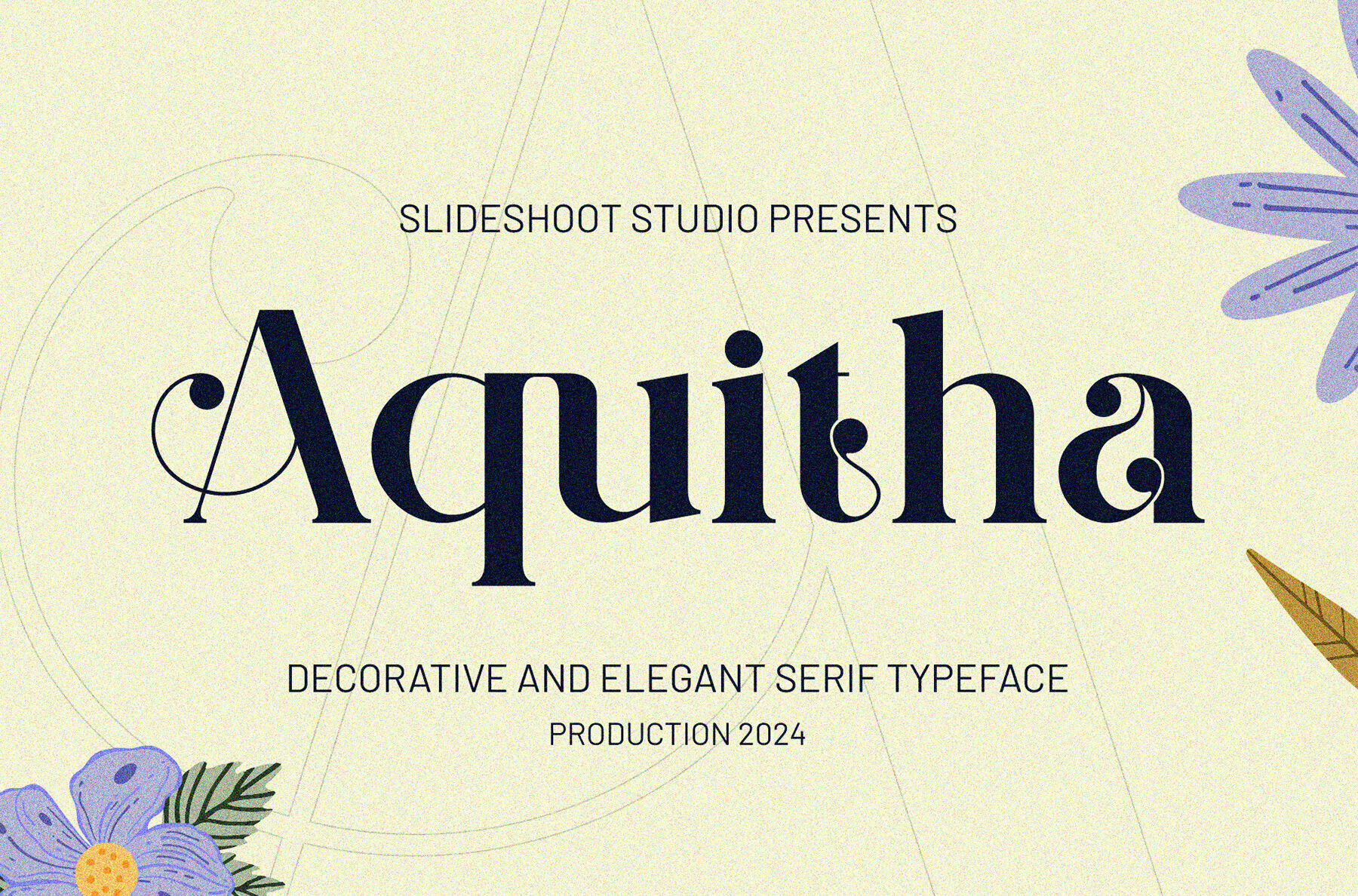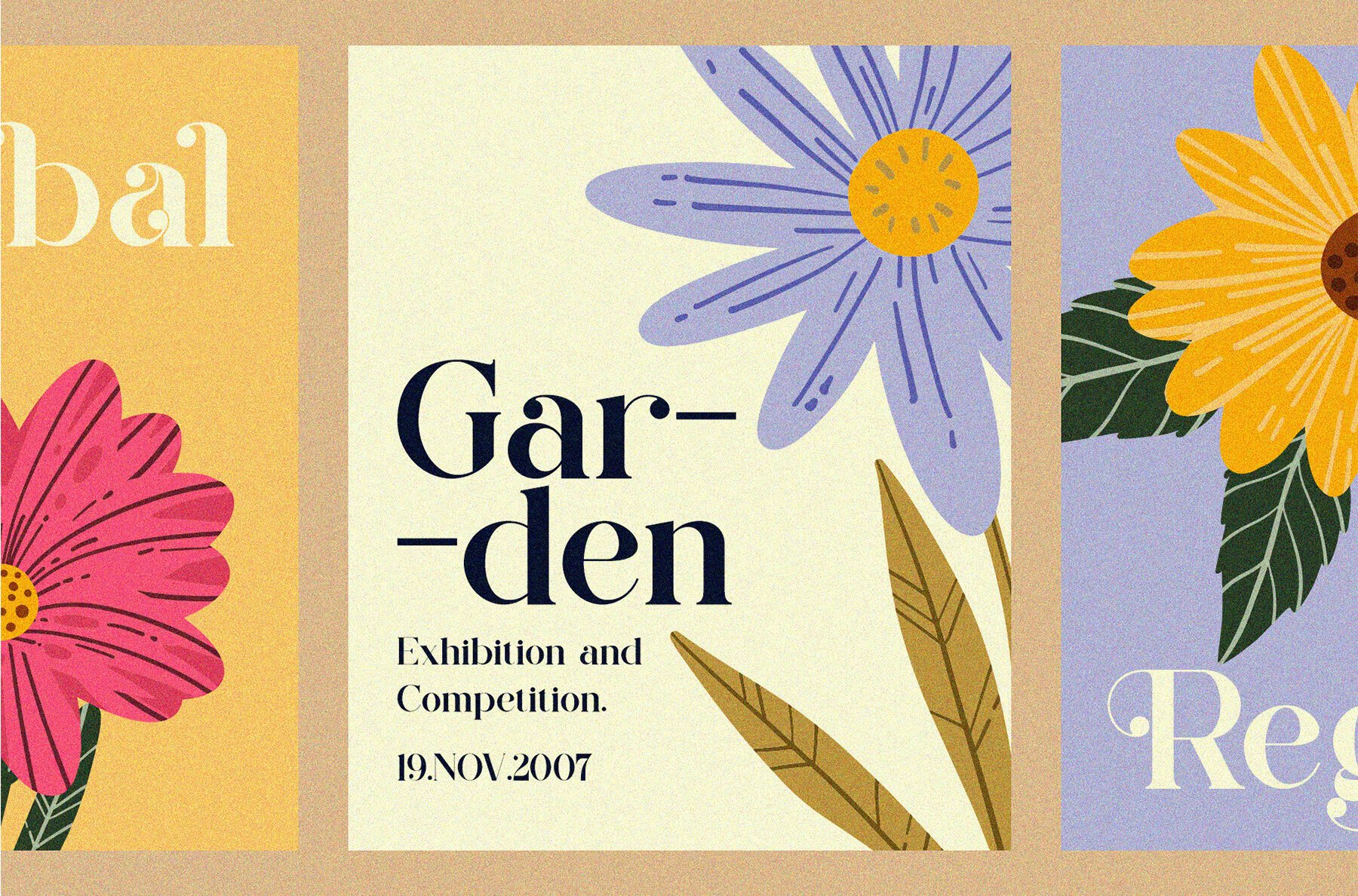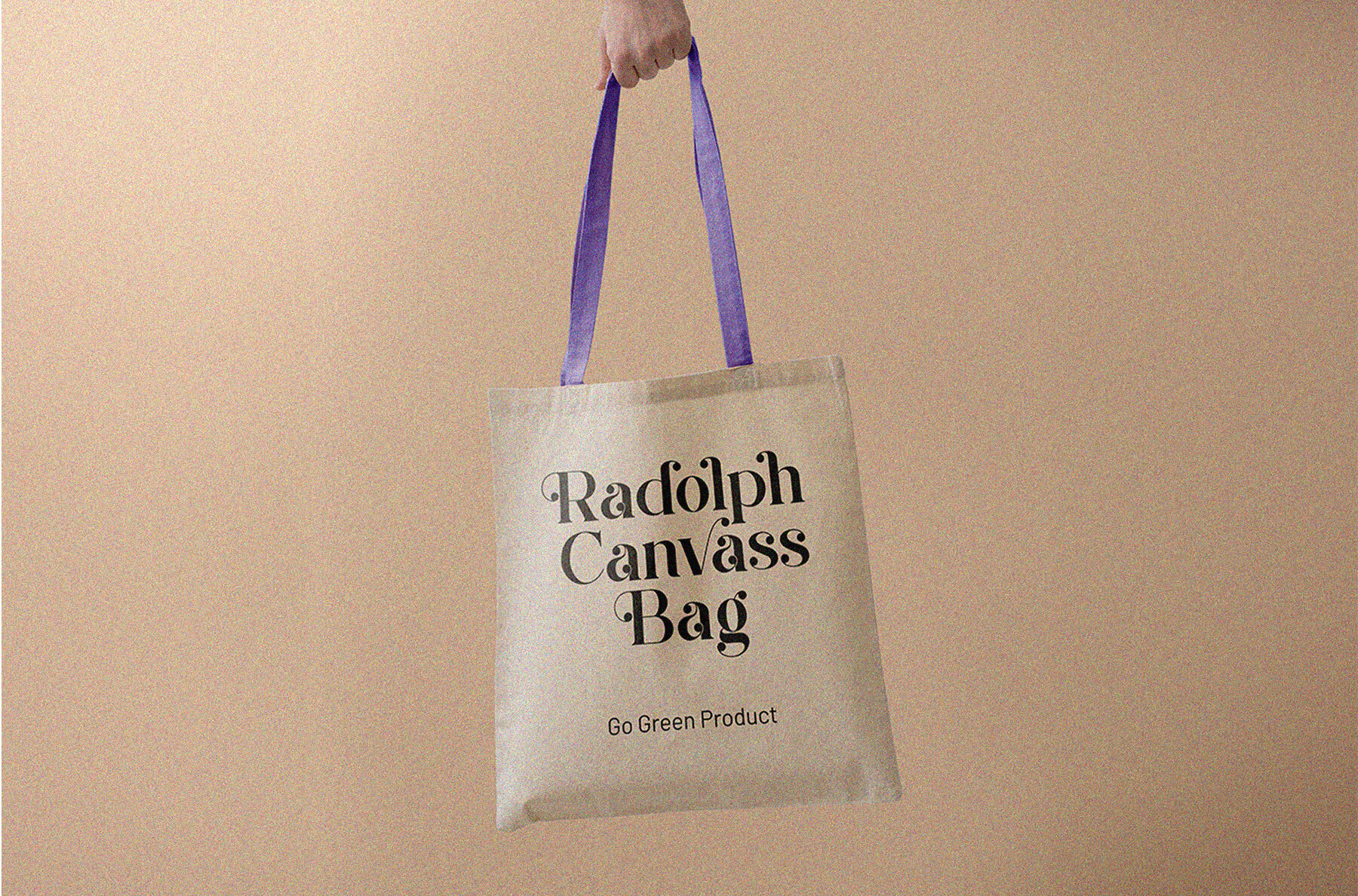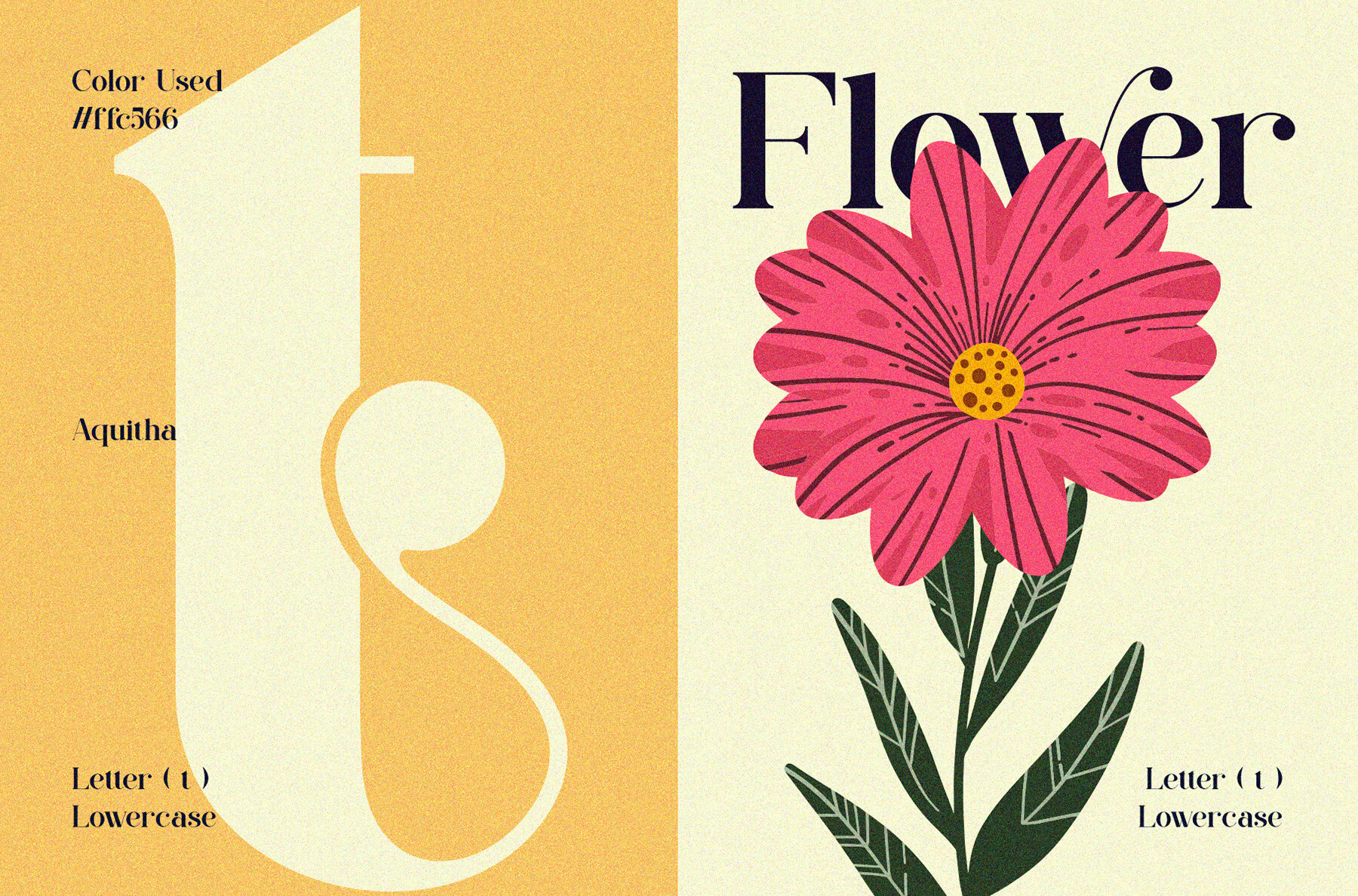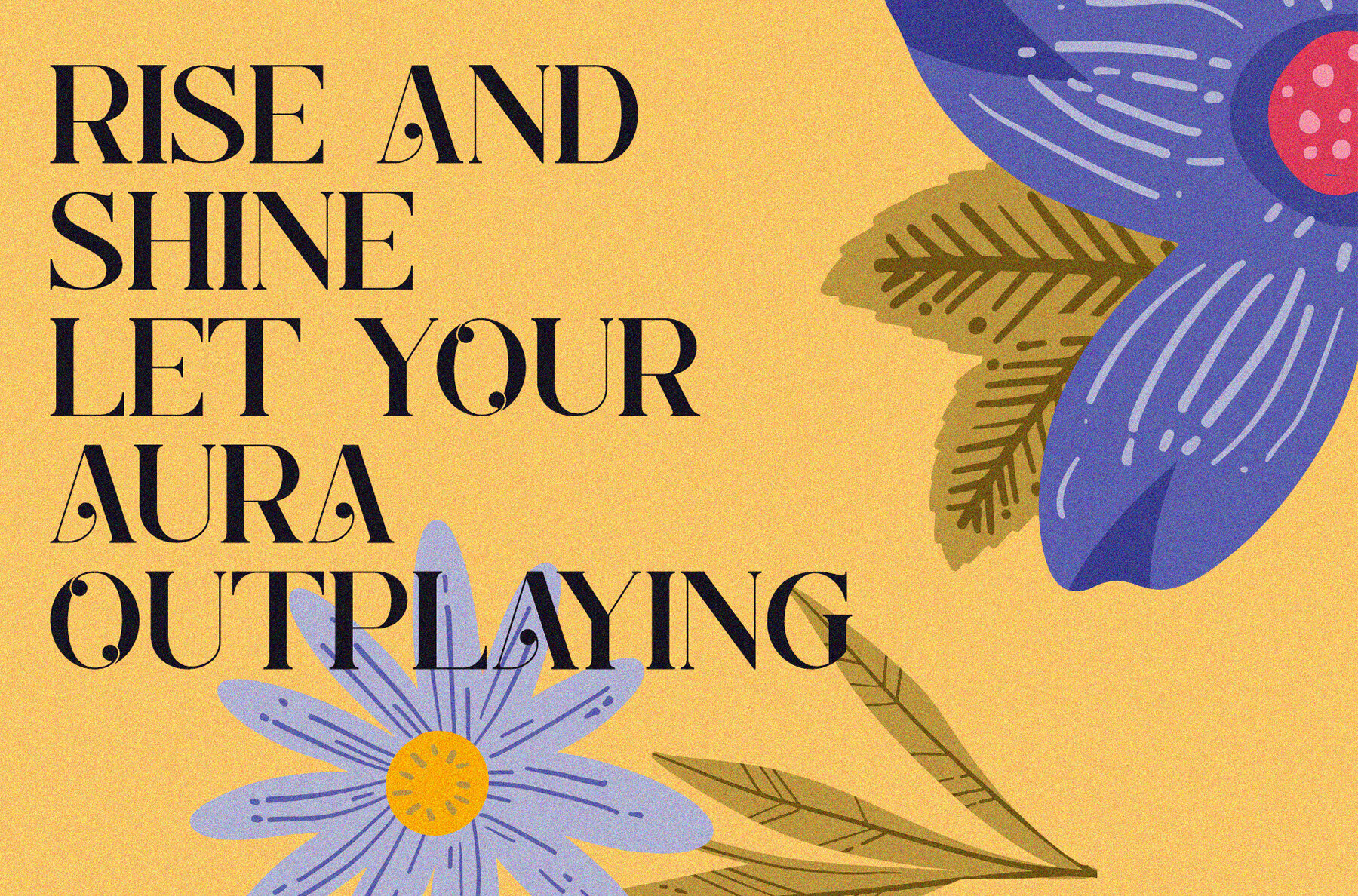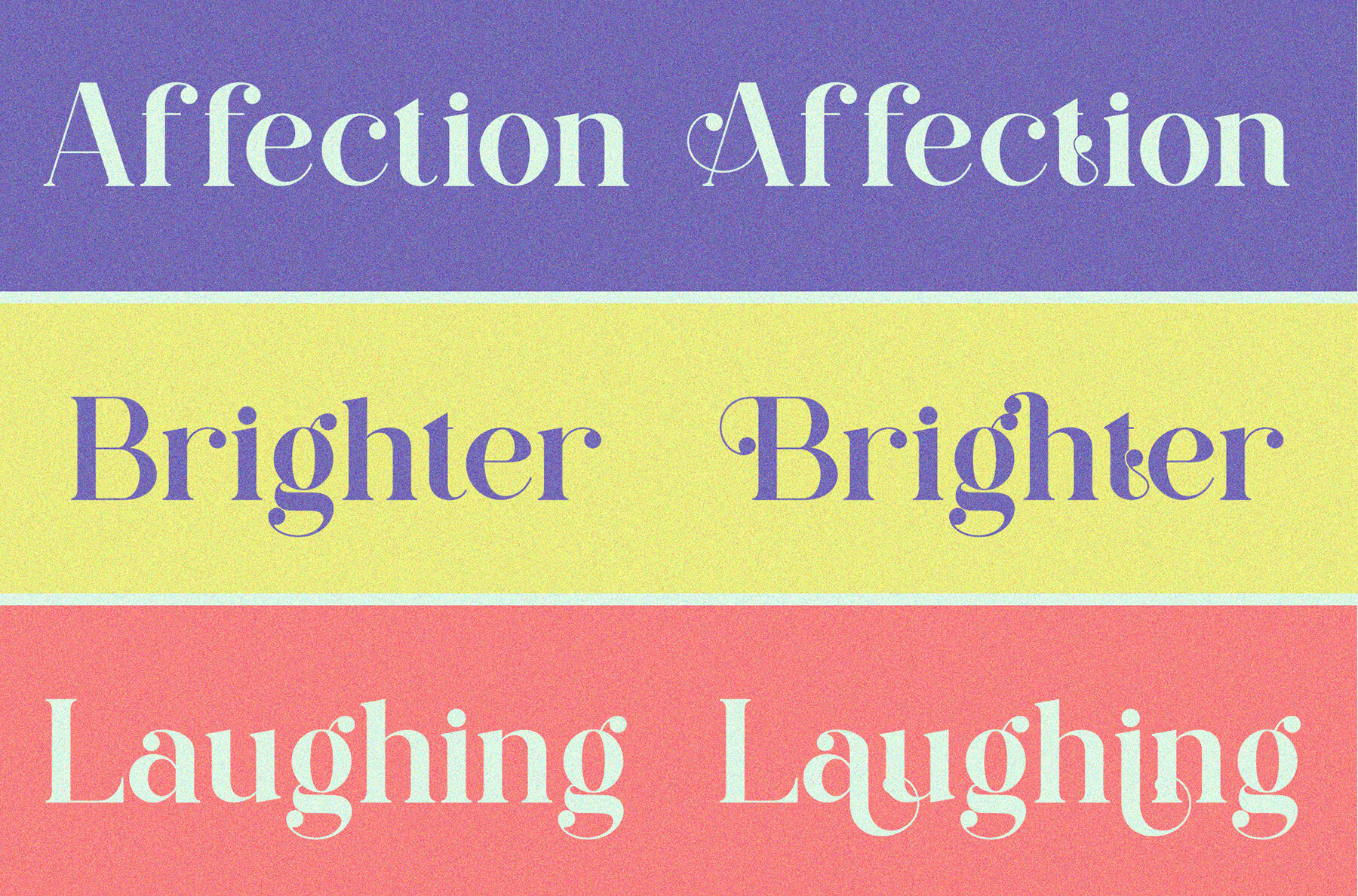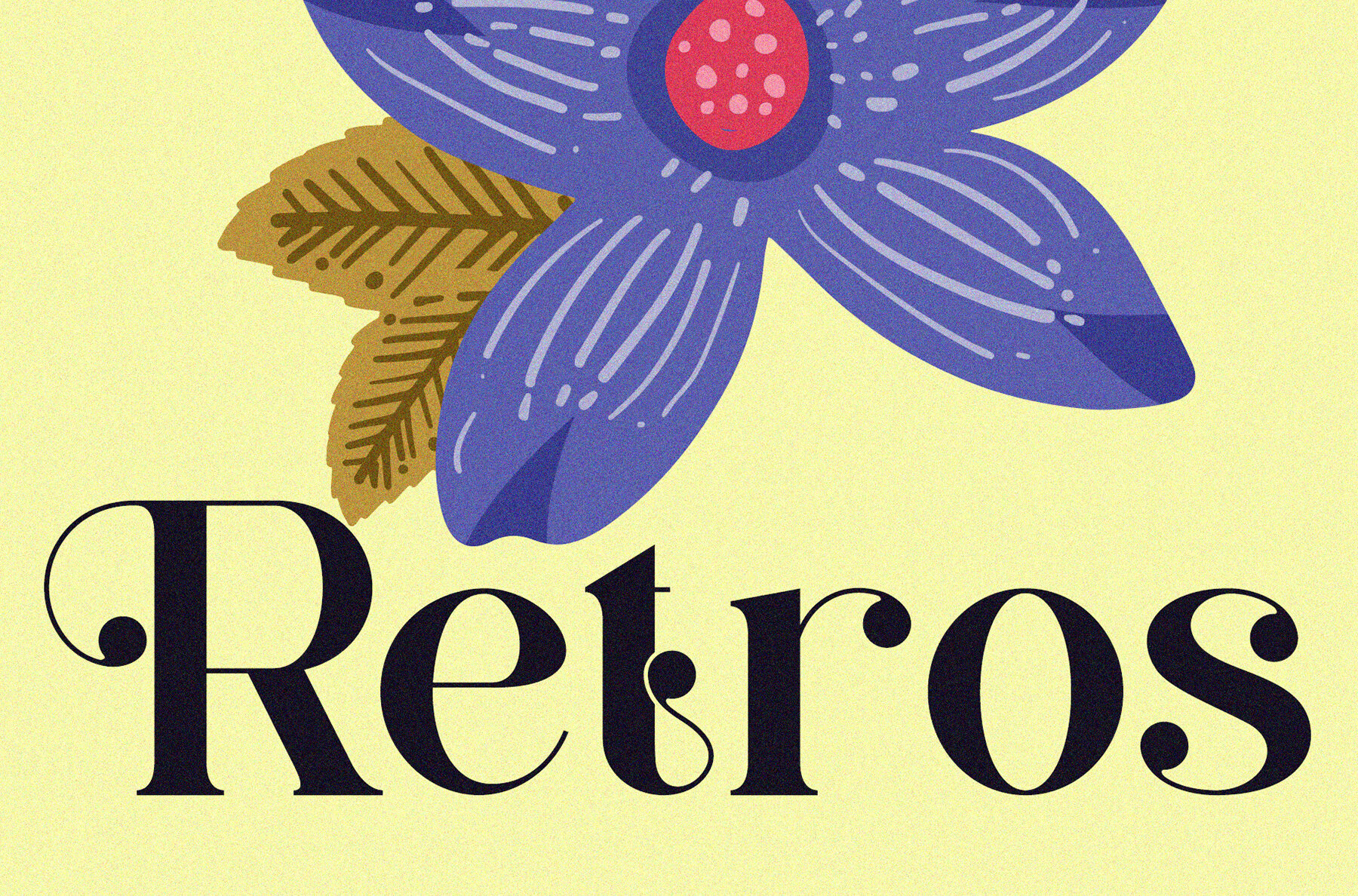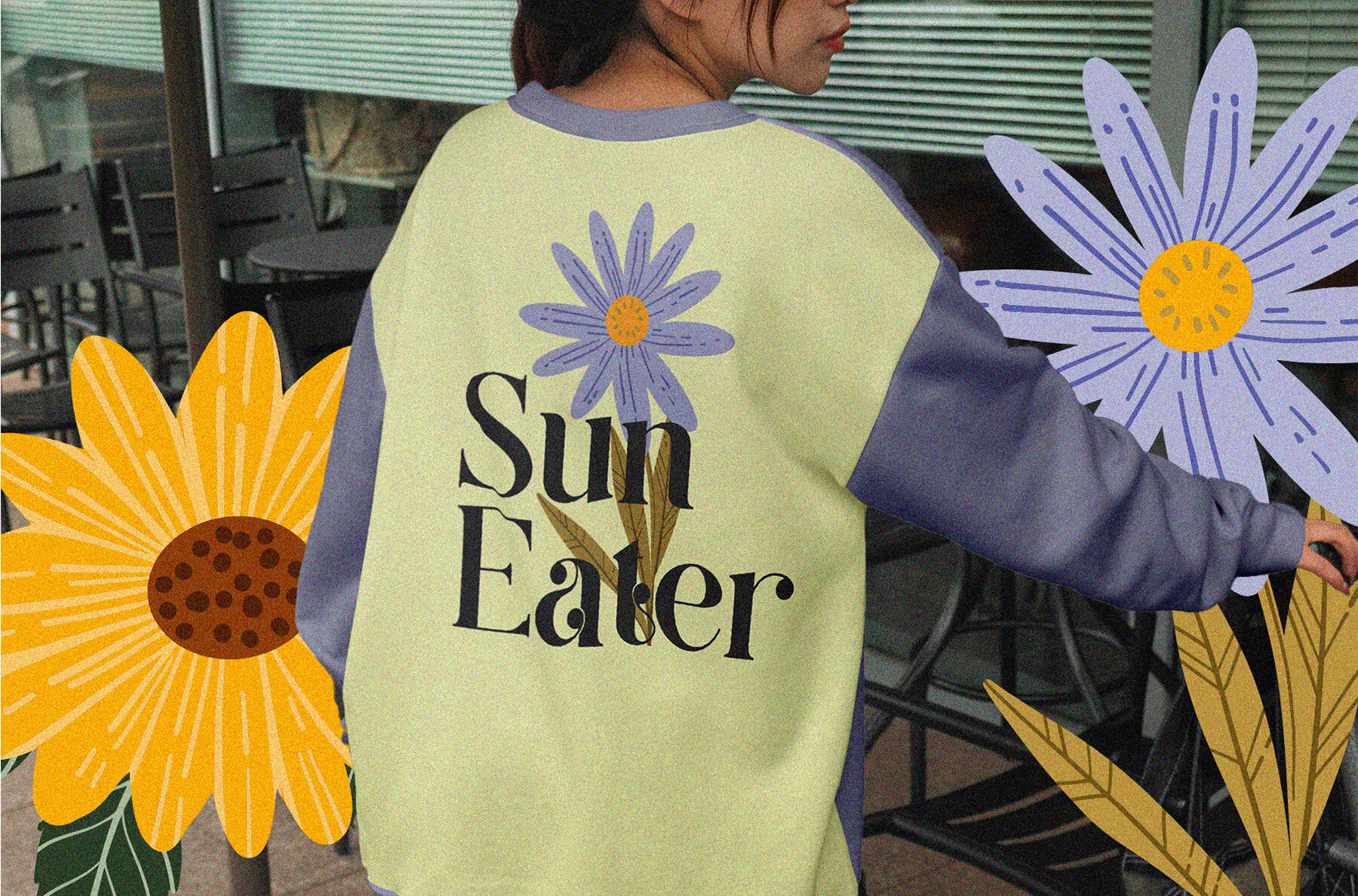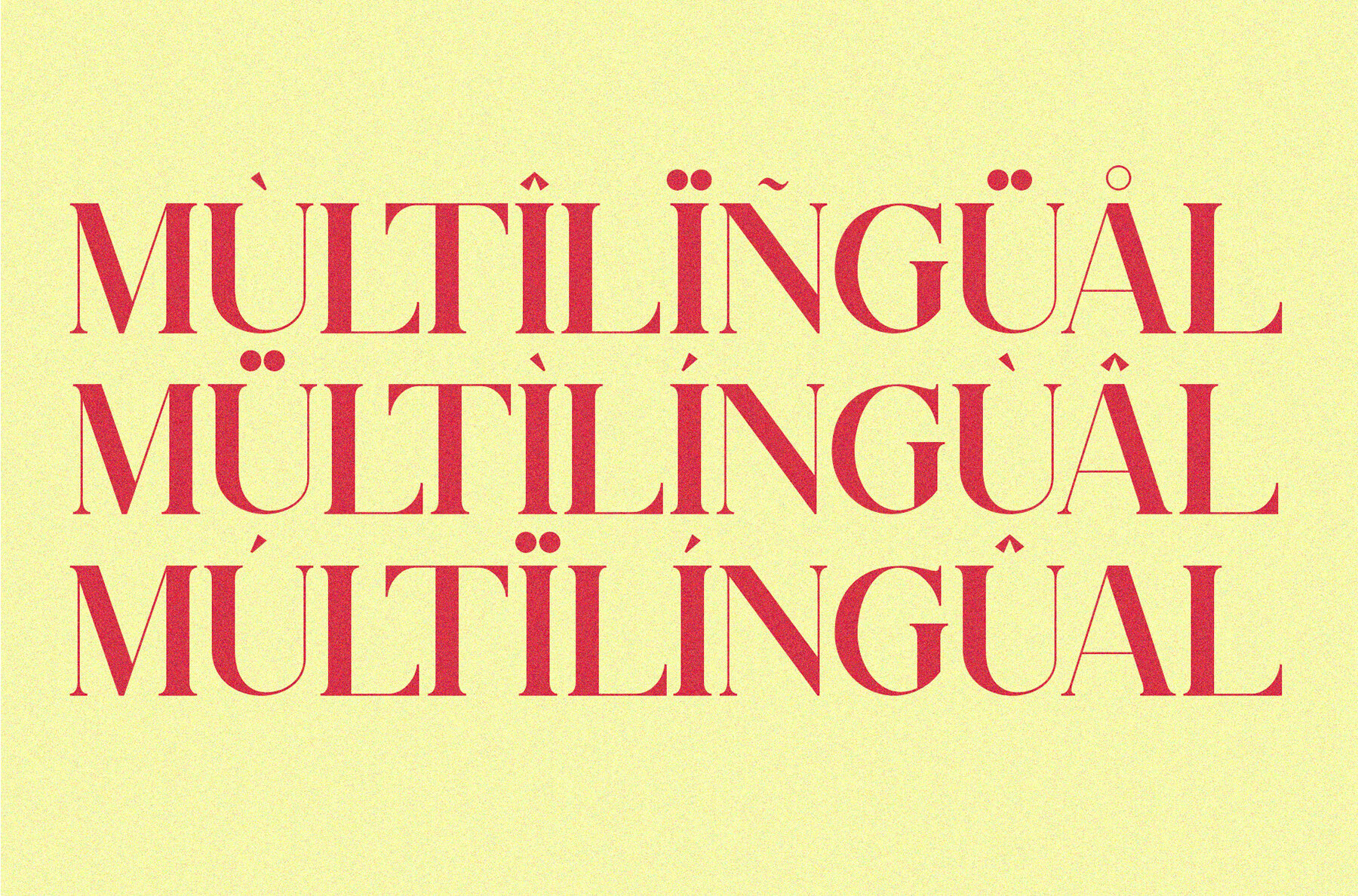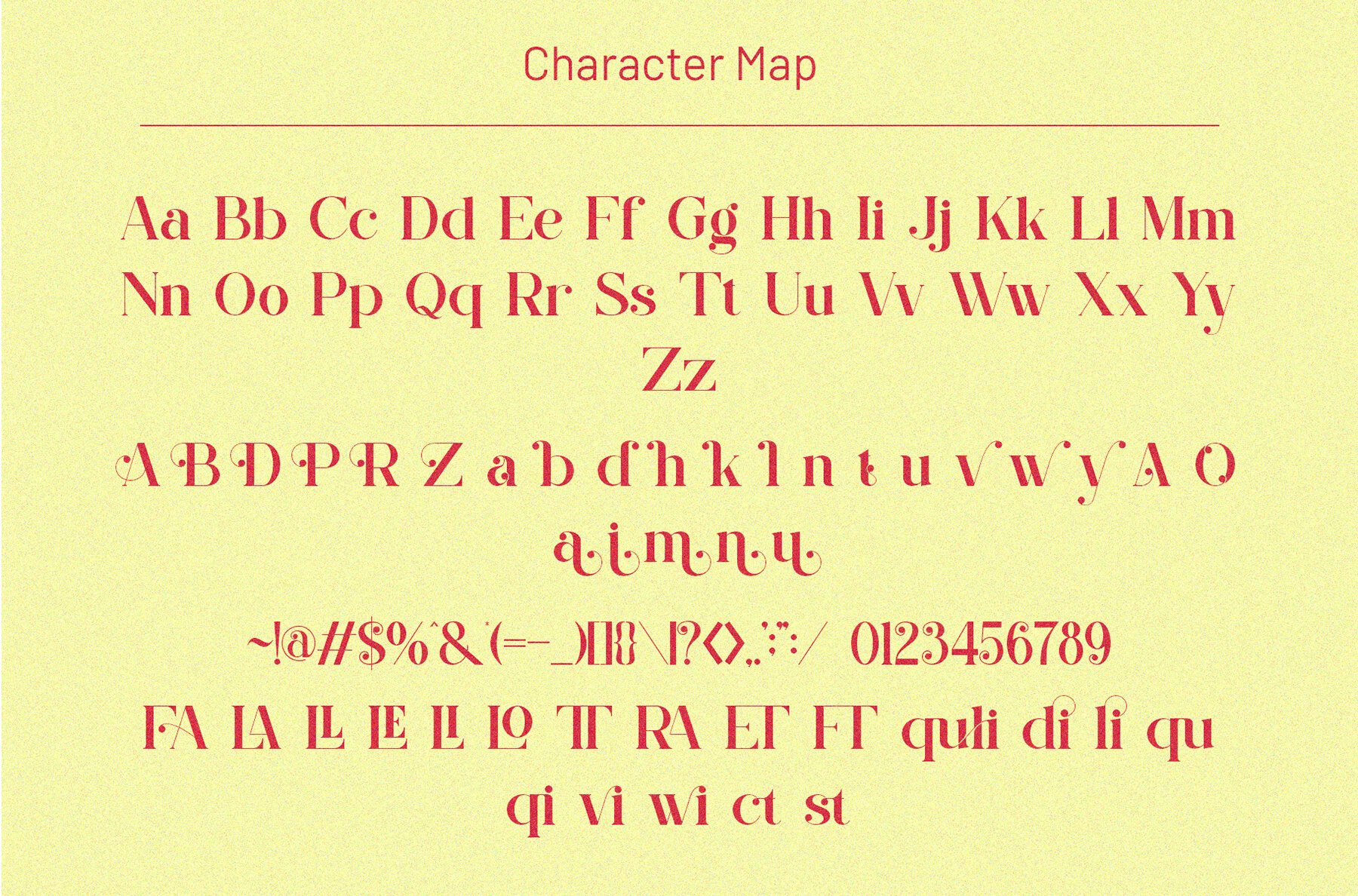
Aquitha Font
Aquitha Regular
Aquitha Serif is a sophisticated and modern font designed to bring elegance to your creative projects. With its smooth and classy character, it's perfect for a range of applications including invitation cards, eye-catching logos, cinematic titles, business cards, book titles, and brand identities. The font's versatility shines through its stylish alterations and ligatures, making it an ideal choice for any project that requires a touch of refinement and contemporary appeal.
Feature-rich, Aquitha Serif includes ligatures, and both uppercase and lowercase characters, alongside a full set of numbering and punctuation. Its ease of use is highlighted through simple installation and compatibility across platforms, whether you're working on a PC or Mac. Supporting key design software like Adobe Illustrator, Adobe Photoshop, Adobe InDesign, and even Microsoft Word, this font ensures a seamless integration into your workflow. Its modern design and elegant details make Aquitha Serif a valuable asset for any designer's toolkit.